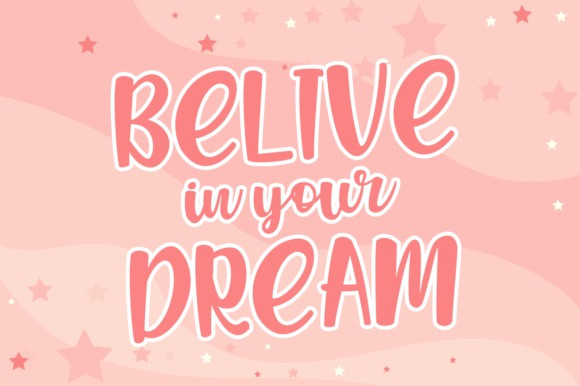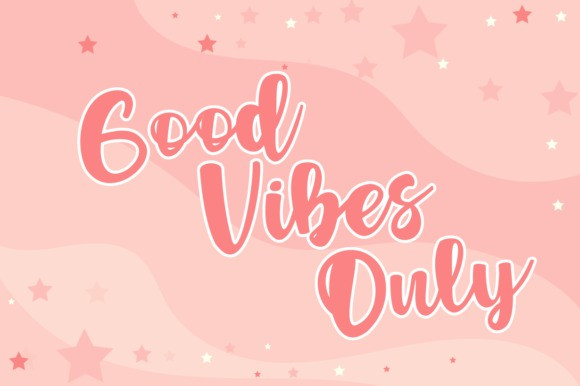
Western Cowboys Script Font
Hello, this time we want to introduce a new product. Western Cowboys is a relaxed and delicate handwritten font that embodies charm and elegance in every character. Use it for projects that need lovely, romantic typography! This font is PUA encoded, which means you can access all of the glyphs and swashes with ease!